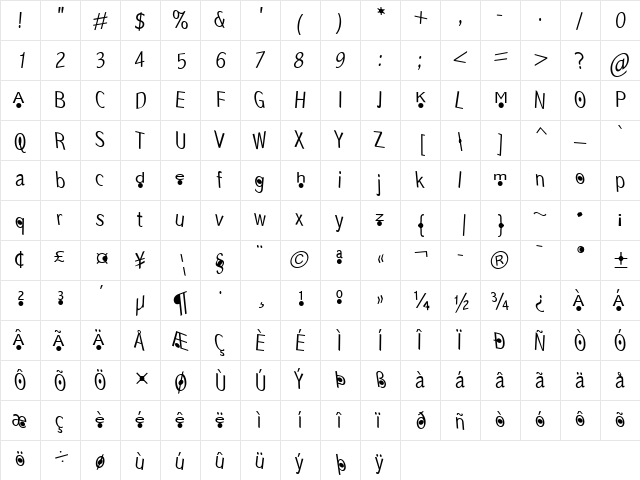
Crazy Circles LightOblique
Design Context for Crazy Circles Typeface
Crazy Circles is a composed and adaptable typeface that performs quietly and consistently across a wide range of design contexts. The slanted form adds forward momentum and visual energy. Its slender proportions lend an understated elegance to any composition.
Pro Tip: Try Crazy Circles for annotation and caption copy alongside an upright companion — the contrast in angle creates a dynamic but ordered typographic system.